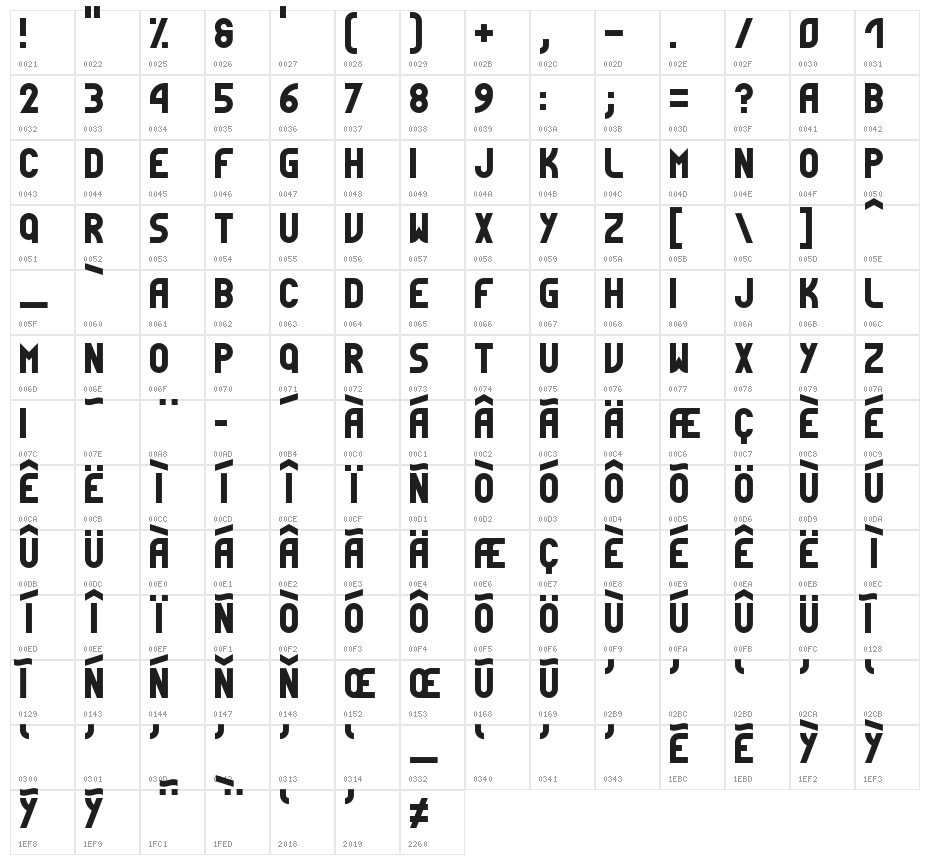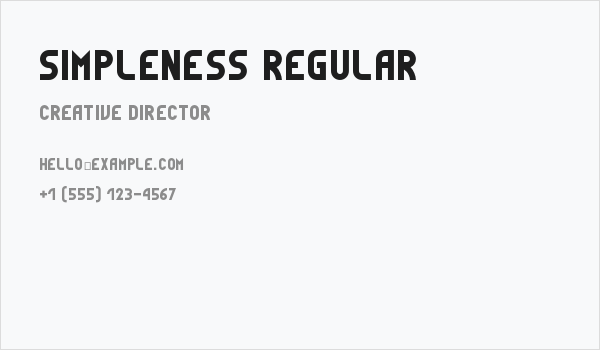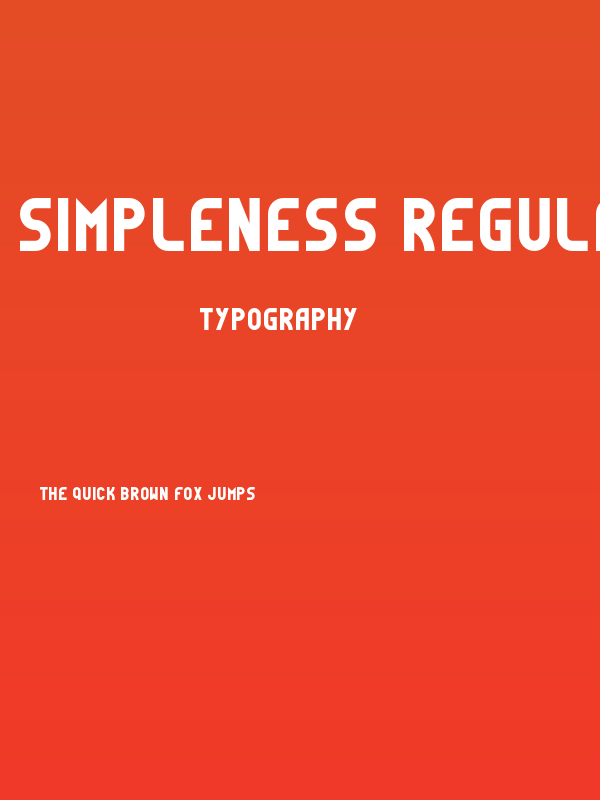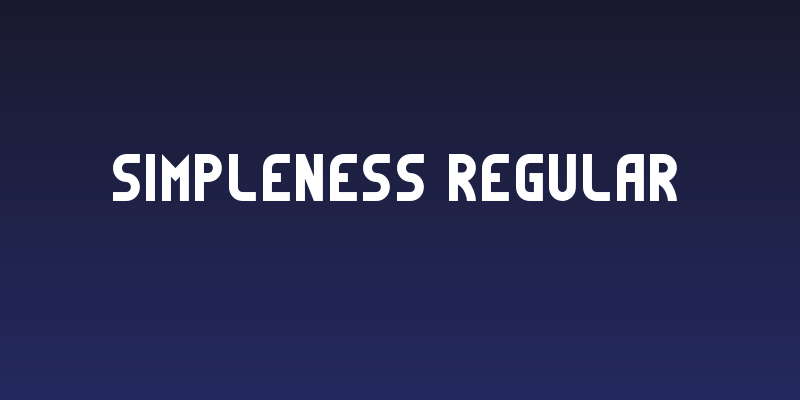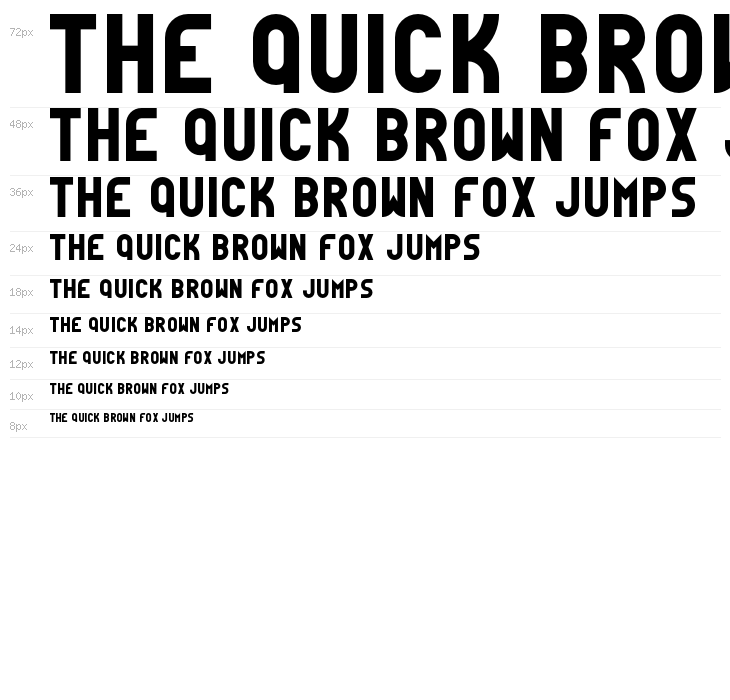
Simpleness Regular Font
This font features a bold and geometric style with a strong presence. The characters are constructed with uniform stroke widths, giving it a modern and clean appearance. The uppercase letters are particularly striking with their blocky and angular design, while the lowercase letters maintain a consistent style that complements the uppercase. The numerals and special characters are designed to match the overall aesthetic, making it versatile for various applications. The font's simplicity and clarity make it highly legible, even at smaller sizes, and its boldness ensures it stands out in any context.
| Proposed Projects | Ideal for branding, headlines, posters, and digital media where a strong and modern look is desired. |